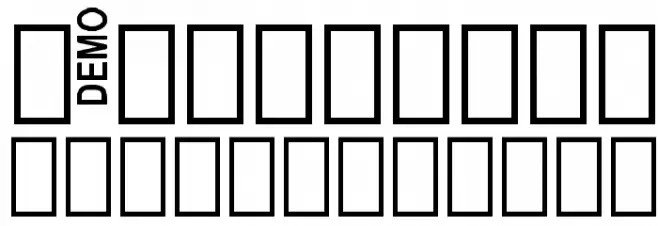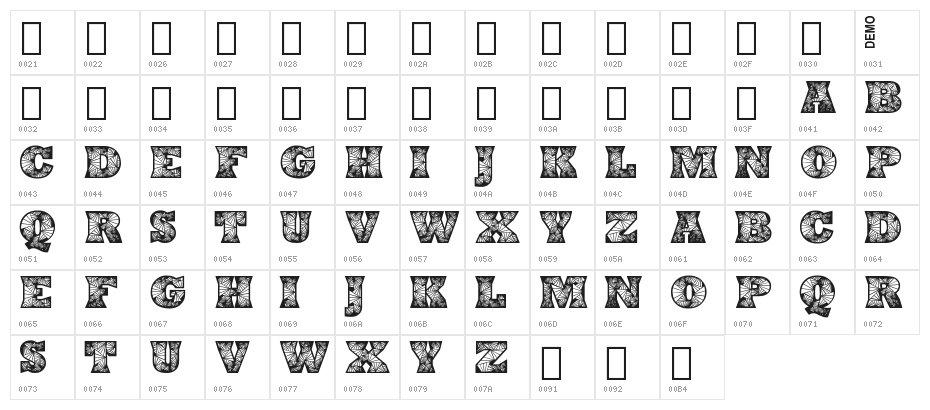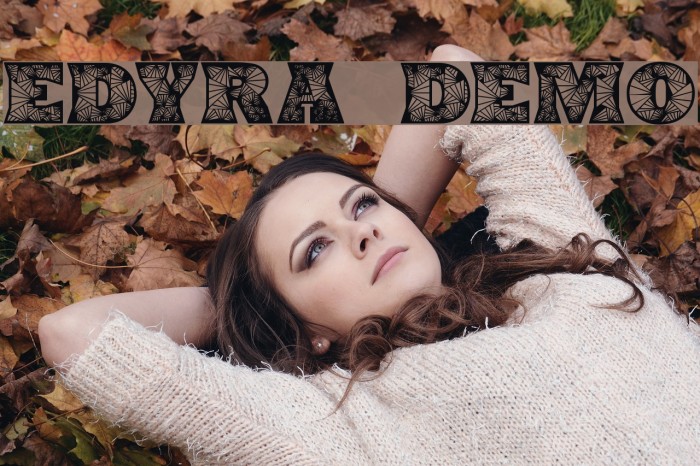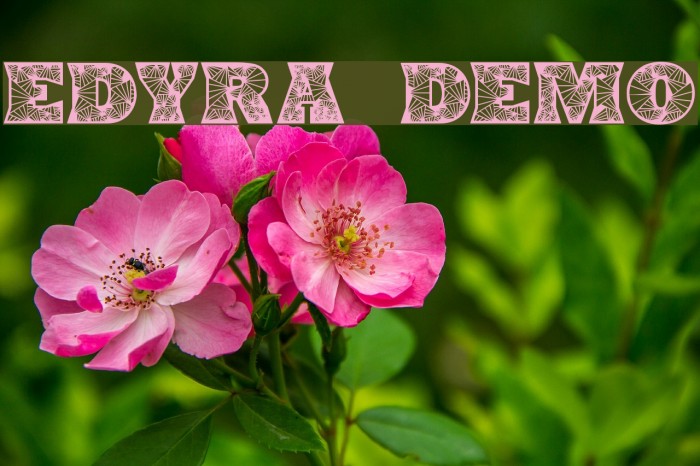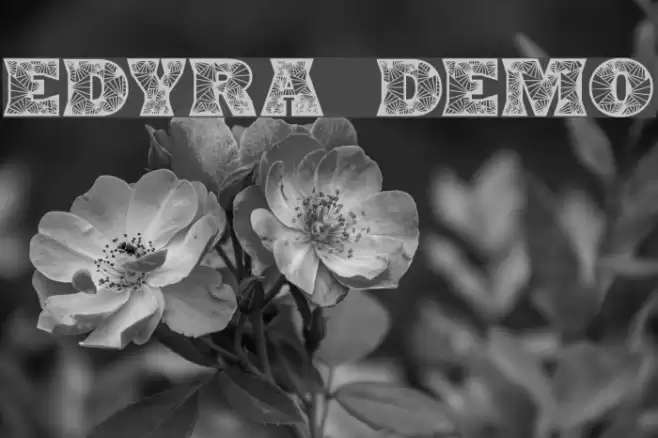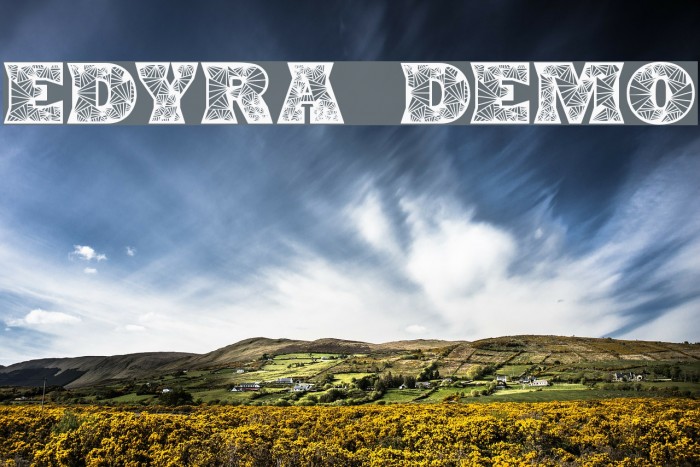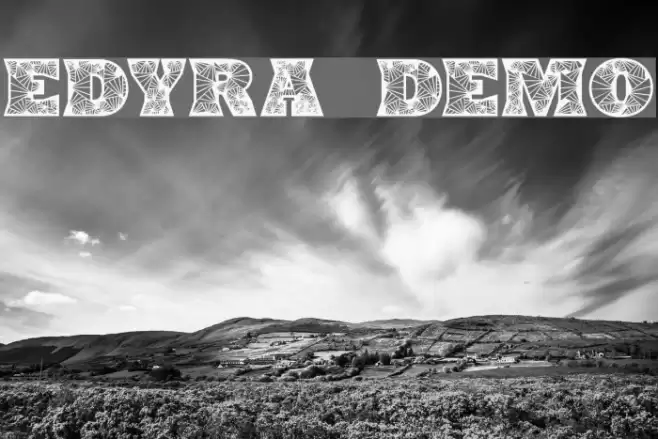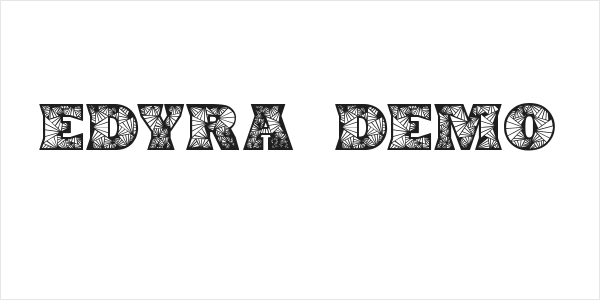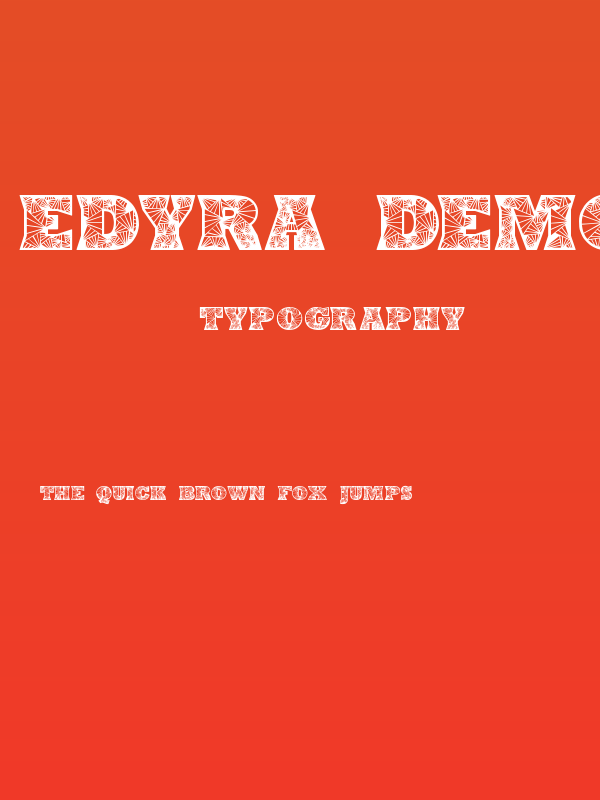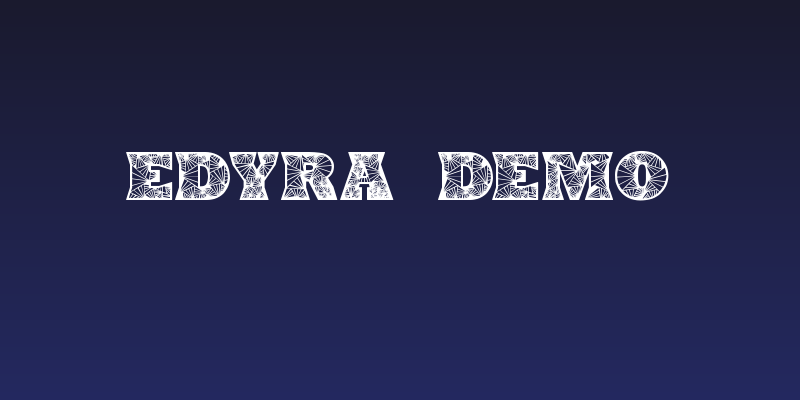
Edyra Demo Font
Edyra Demo Description
This font features a bold, decorative style with intricate patterns filling each letter. The uppercase letters are designed with a strong presence, making them ideal for eye-catching displays. The detailed patterns within each character add a unique artistic flair, reminiscent of hand-drawn or engraved designs. This font is particularly suitable for projects that require a creative and distinctive look, such as posters, invitations, or branding materials. The boldness of the letters ensures readability while the decorative elements provide a touch of elegance and sophistication.
| Proposed Projects | Ideal for posters, invitations, branding, and any project needing a creative, artistic touch. |